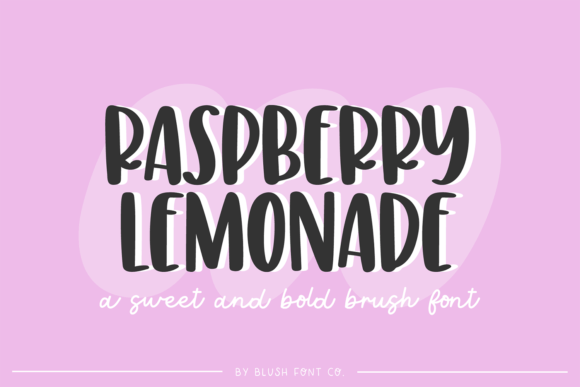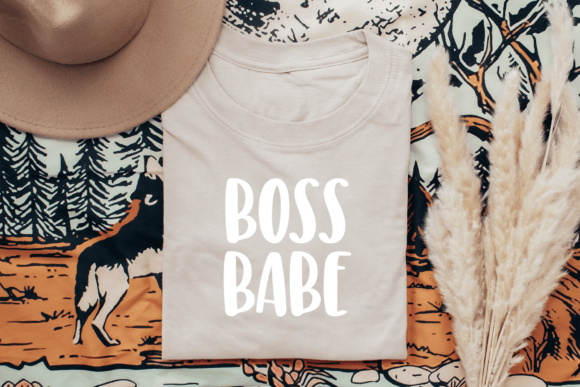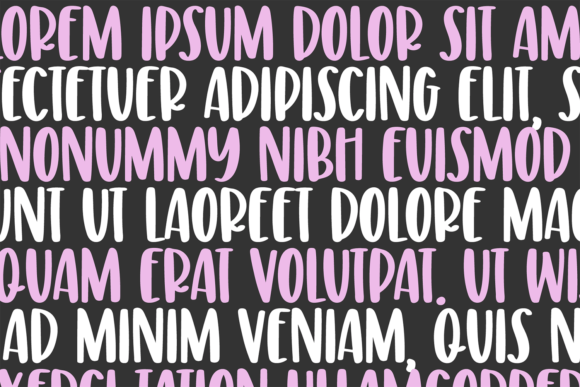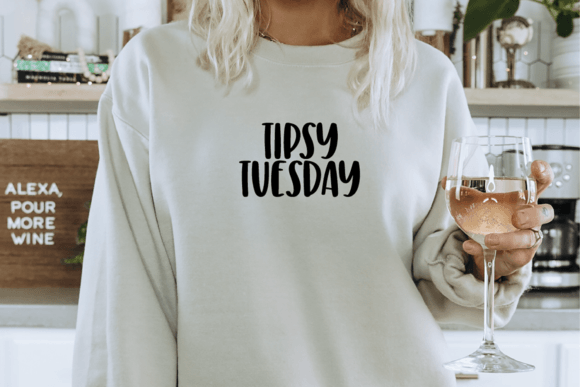
Raspberry Lemonade Font: A Bold, Playful Brush Font for Social Media
About the Raspberry Lemonade Font
Add a touch of class to your work with the Raspberry Lemonade Font, a truly exceptional typeface. Raspberry Lemonade is a sweet and bold brush font, with thick, sweeping strokes that radiate energy and playfulness. Its lively and dynamic letterforms are perfect for youthful branding, social media graphics, and eye-catching titles. This font is a charming and bold choice that will bring a burst of personality to any project.
Raspberry Lemonade excels in headlines, short text blocks, and packaging design where its bold strokes make a strong visual statement. It’s ideal for brands targeting a young, energetic demographic—think food, beverage, clothing, or entertainment. Avoid using it for body text or lengthy paragraphs; its playful informality isn’t suited for extended reading.
Pairing it with a clean sans-serif like Open Sans for body copy creates a balanced contrast, while a geometric sans-serif like Montserrat adds a modern edge. For a more playful feel, consider pairing it with a casual script font. A subtle serif like Lora can also provide a sophisticated counterpoint.
The font’s core personality is undeniably playful and energetic. Its bold strokes convey a sense of fun and vibrancy, making it a great choice for projects needing a youthful and memorable visual identity.
Raspberry Lemonade Font Usage Examples
Raspberry Lemonade Font Example